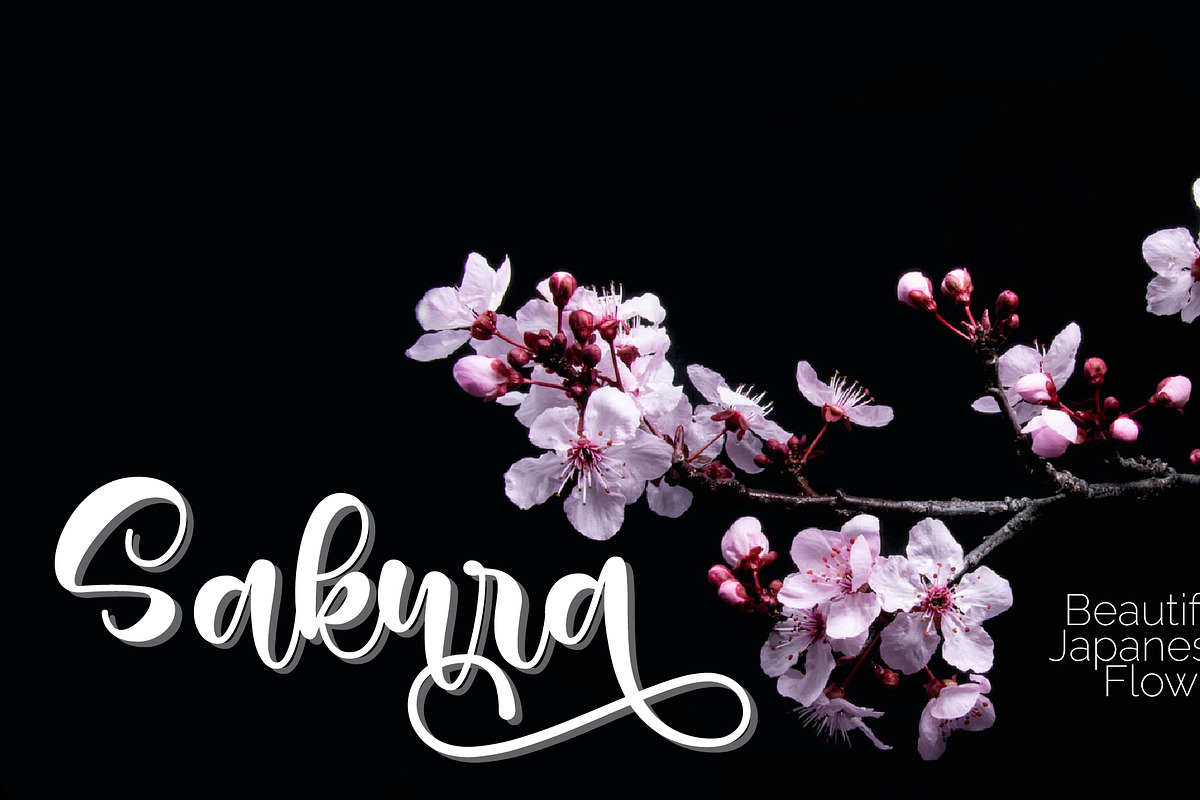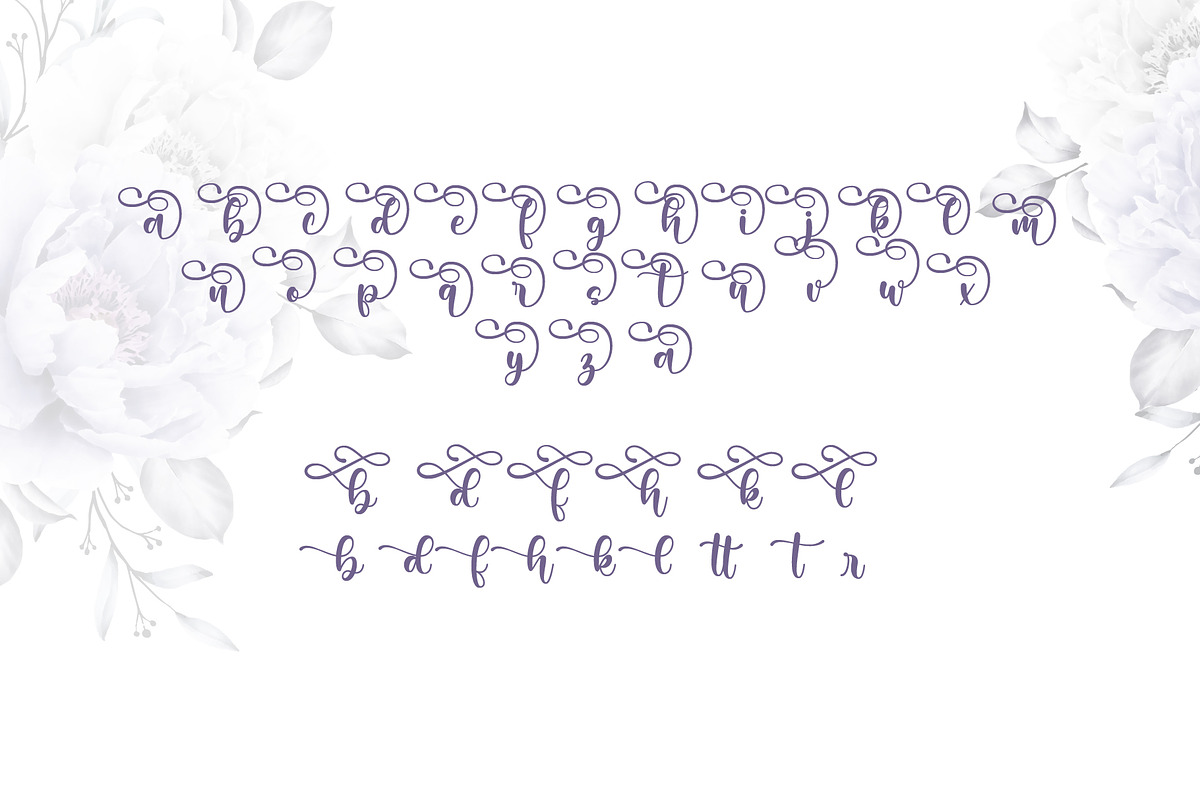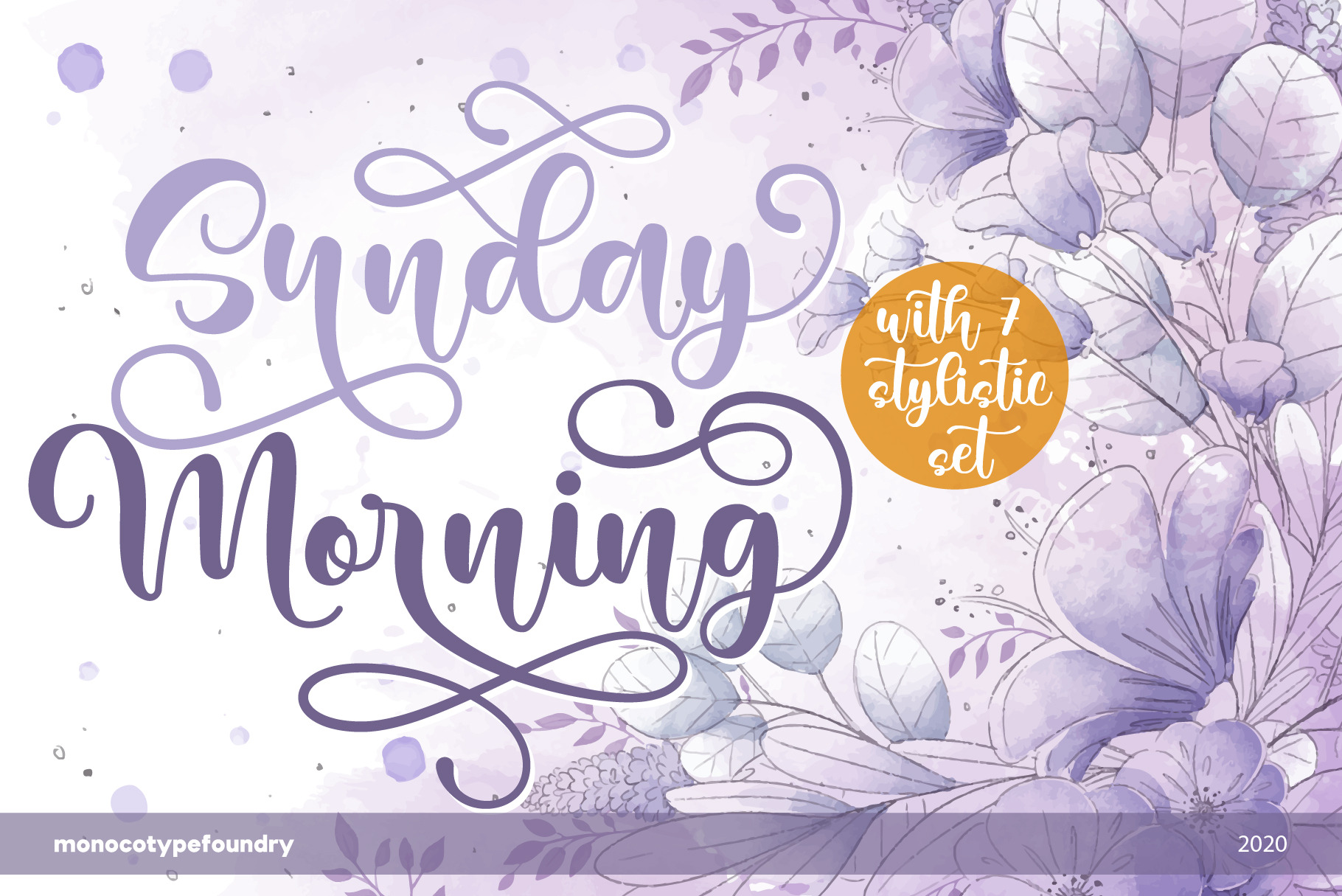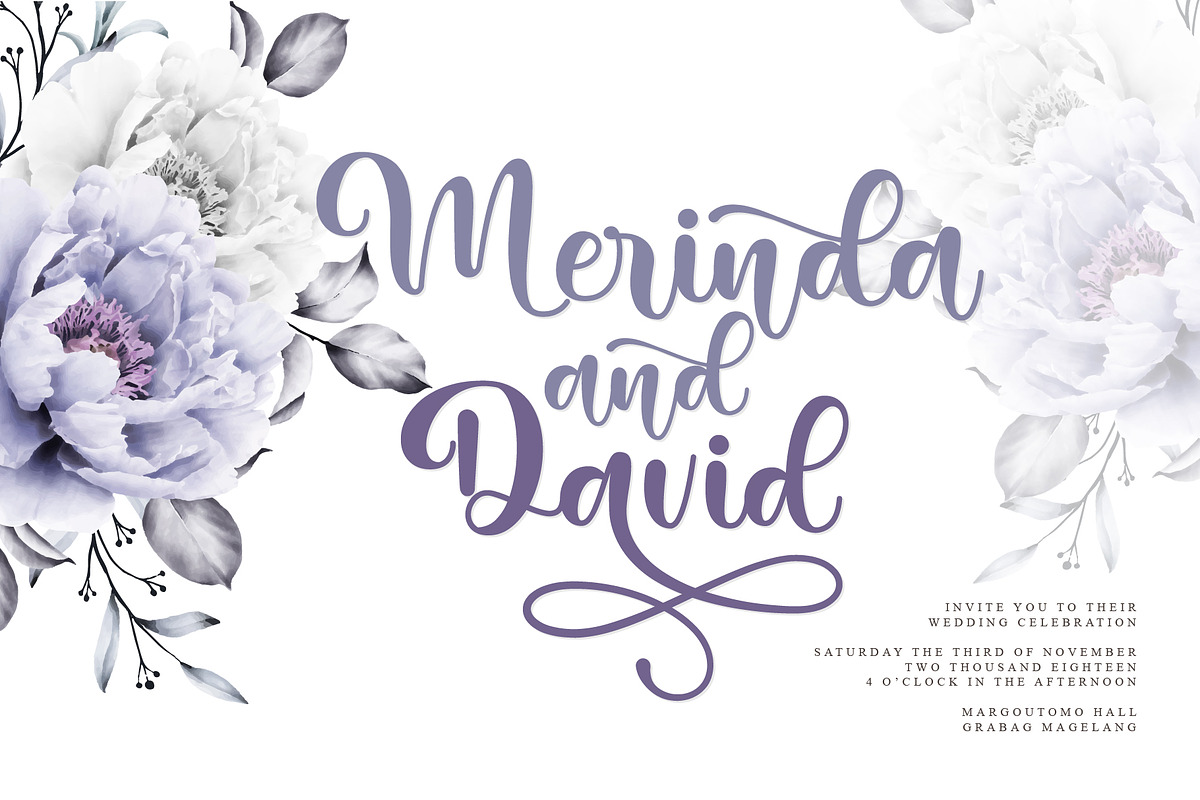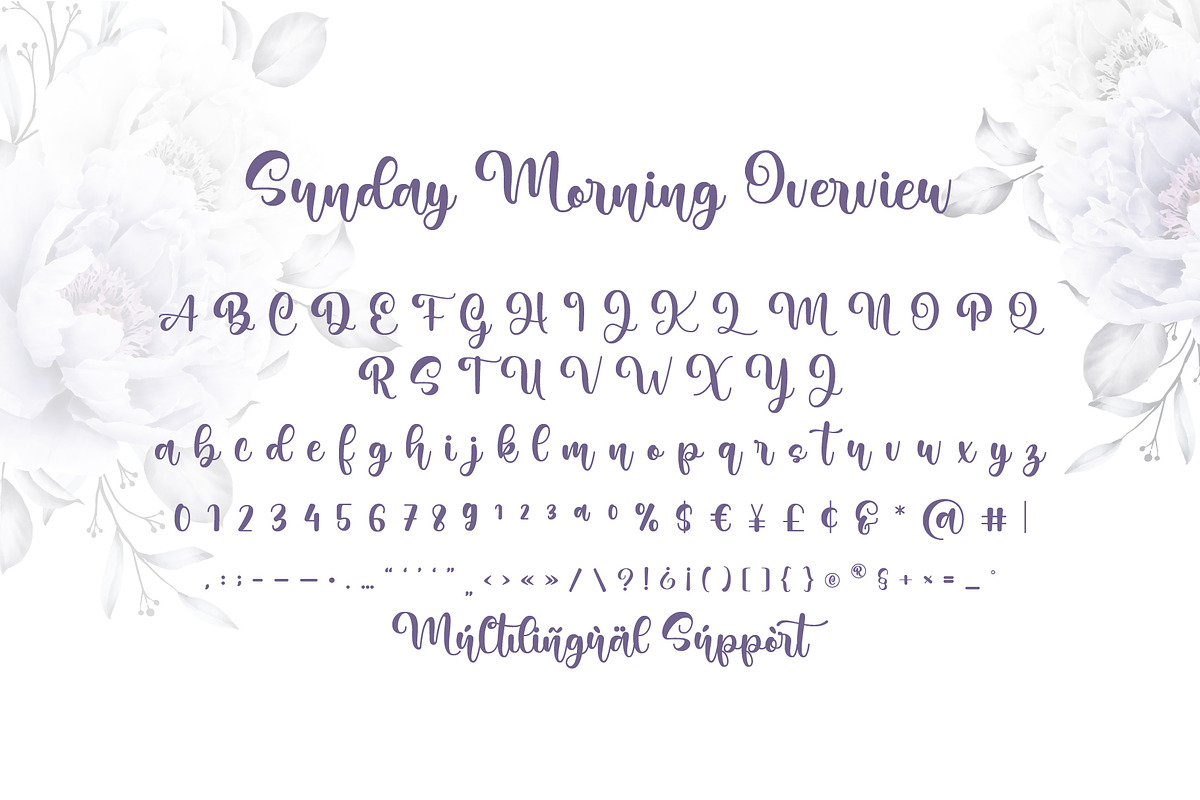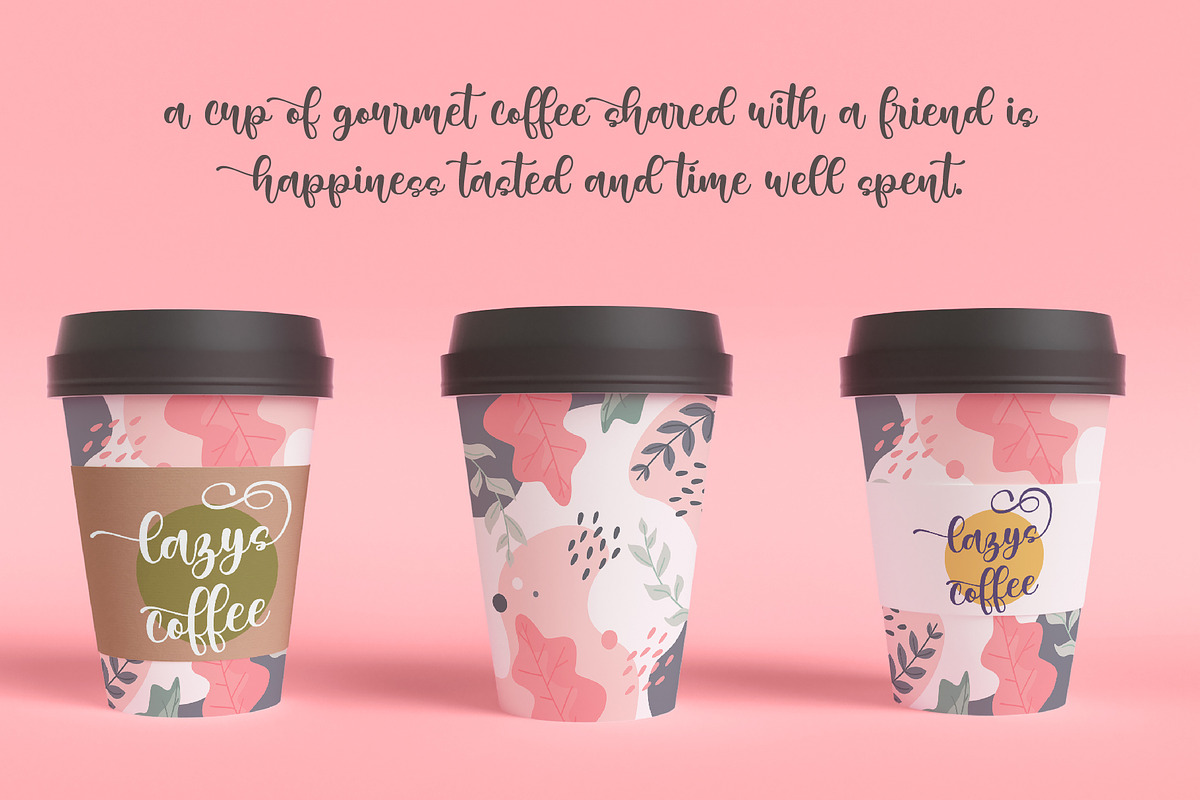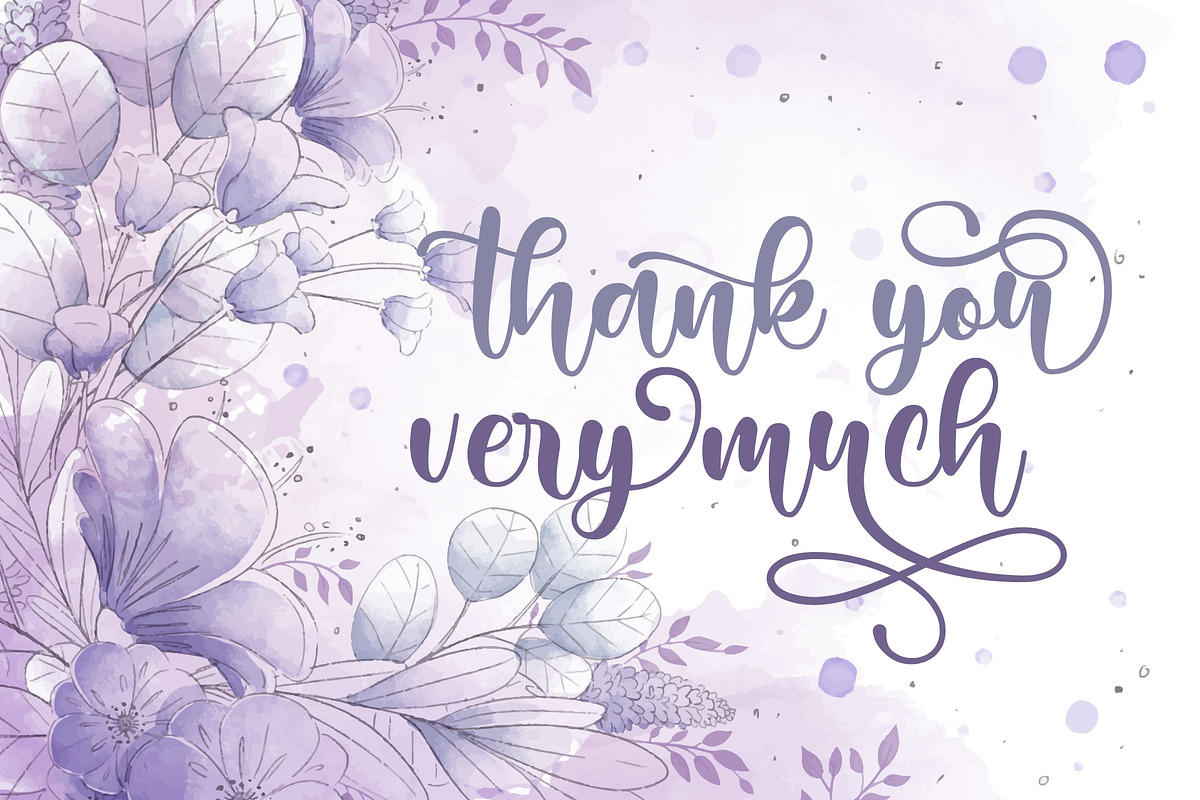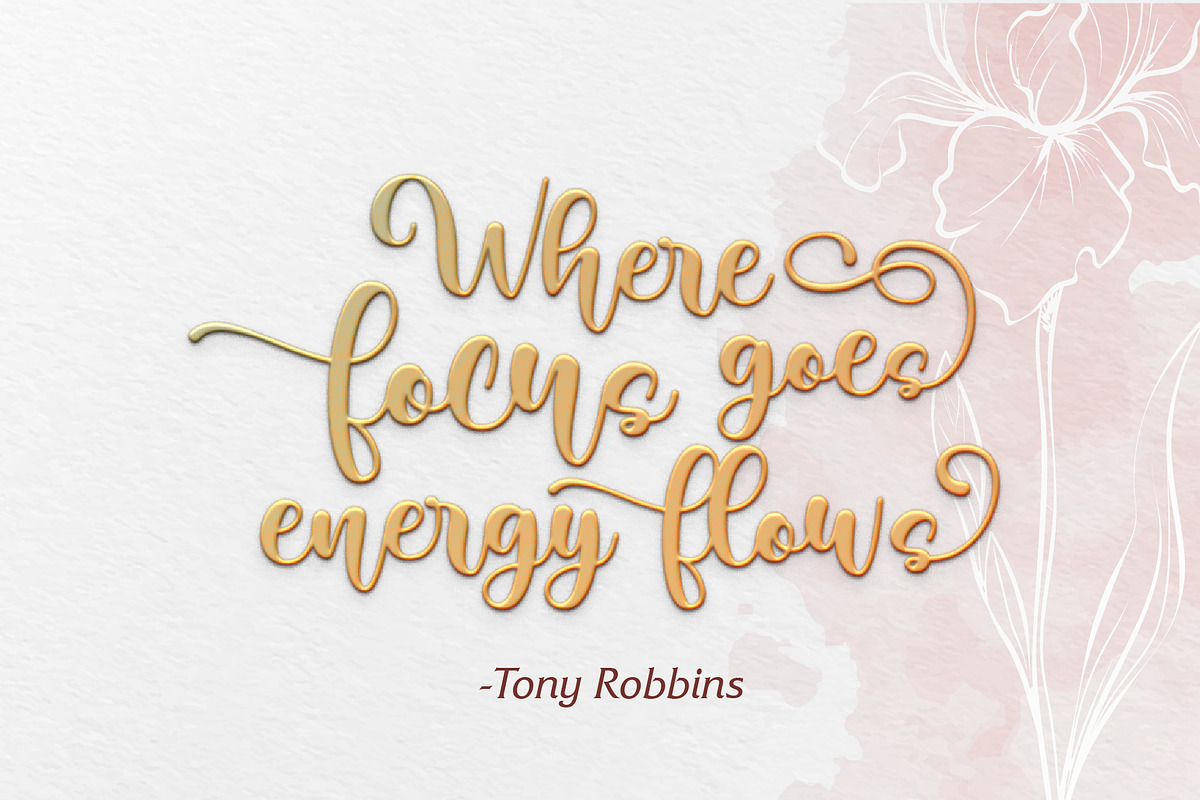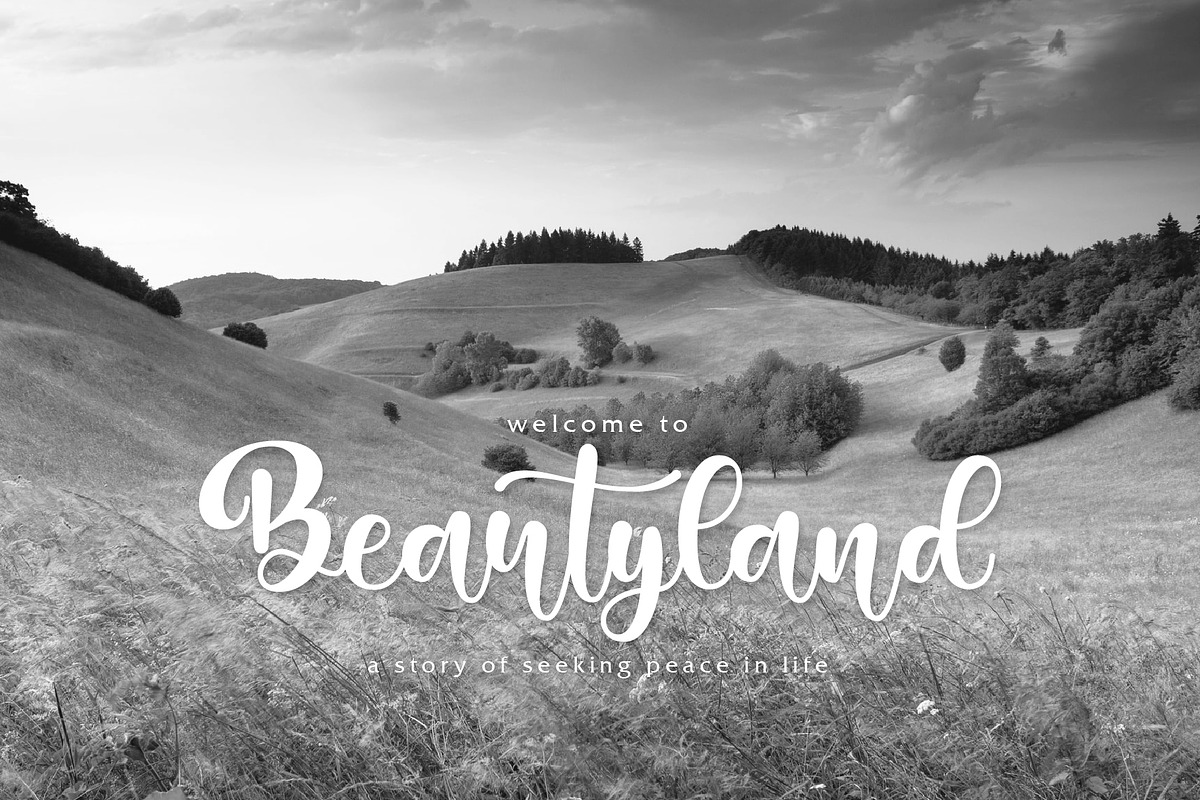
Sunday Morning Script Font
Sunday Morning is a script font created with love, sincerity, and patience. can be used to make invitation writing, lettering, and all graphic design needs. This font is equipped with 7 stylistic sets and some alternative characters that will make your design look more attractive and beautiful.
This Typeface created by our type designer: Hasna.